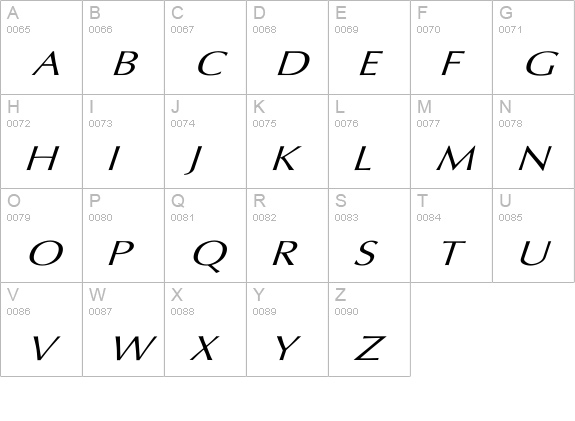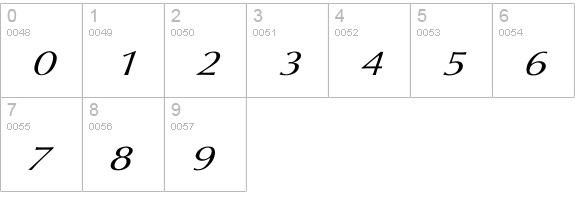
Oxford Wd Italic is a distinctive, italic variant in the Oxford typeface family \xE2\x80\x94 well suited to design and typography projects.
Oxford Wd Italic font exudes elegance and sophistication with its sleek and stylish design. The italicized characters add a touch of flair to any text, making it perfect for projects that require a touch of refinement. The font's graceful curves and unique letter shapes make it stand out from the crowd, while maintaining readability and professionalism. What sets Oxford Wd Italic font apart is that it is not only stunning but also free for personal and commercial use. This means you can elevate your designs without breaking the bank. You can easily download Oxford Wd Italic font for free at FontsMarket.com, where you can explore a wide range of high-quality fonts to suit all your creative needs. Don't miss out on this opportunity to add a touch of class to your projects with the exquisite Oxford Wd Italic font.